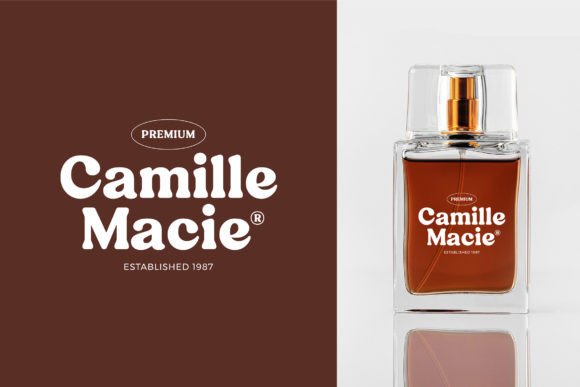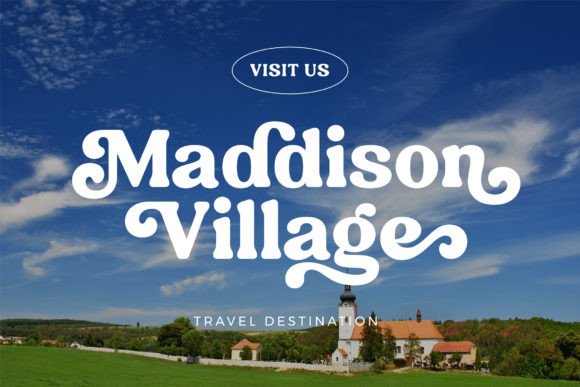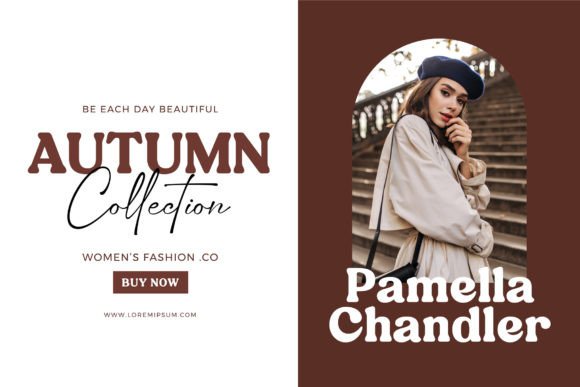
Bremlin Font: Bold Retro Typography for Groovy Logo Design
About the Bremlin Font
Introducing the Bremlin Font, a beautifully crafted typeface designed to elevate your creative projects. Bremlin is a bold retro font with a lot of alternate glyphs. This font is the perfect match for groovy retro and vintage design. Bremlin font is also usable in a wide range of works such as logos, covers, posters, quotes, product packaging, merchandise, social media, and much more!
Bremlin’s bold, retro style shines in headlines, posters, and branding projects requiring a vintage aesthetic. It’s ideal for packaging that evokes nostalgia or a playful, energetic feel. However, its strong character and relatively large x-height make it less suitable for body text or UI elements where readability over extended lengths is crucial.
For optimal visual harmony, pair Bremlin with a clean sans-serif like Montserrat for a balanced contrast, or a more delicate script font such as Great Vibes for a touch of vintage elegance. A geometric sans-serif could also create a modern, yet retro-infused look.
Bremlin projects a confident, playful personality—best suited for brands aiming for a retro-inspired, energetic image. Avoid using it where a sophisticated or minimalist approach is paramount.
Bremlin Font Usage Examples
Bremlin Font Example